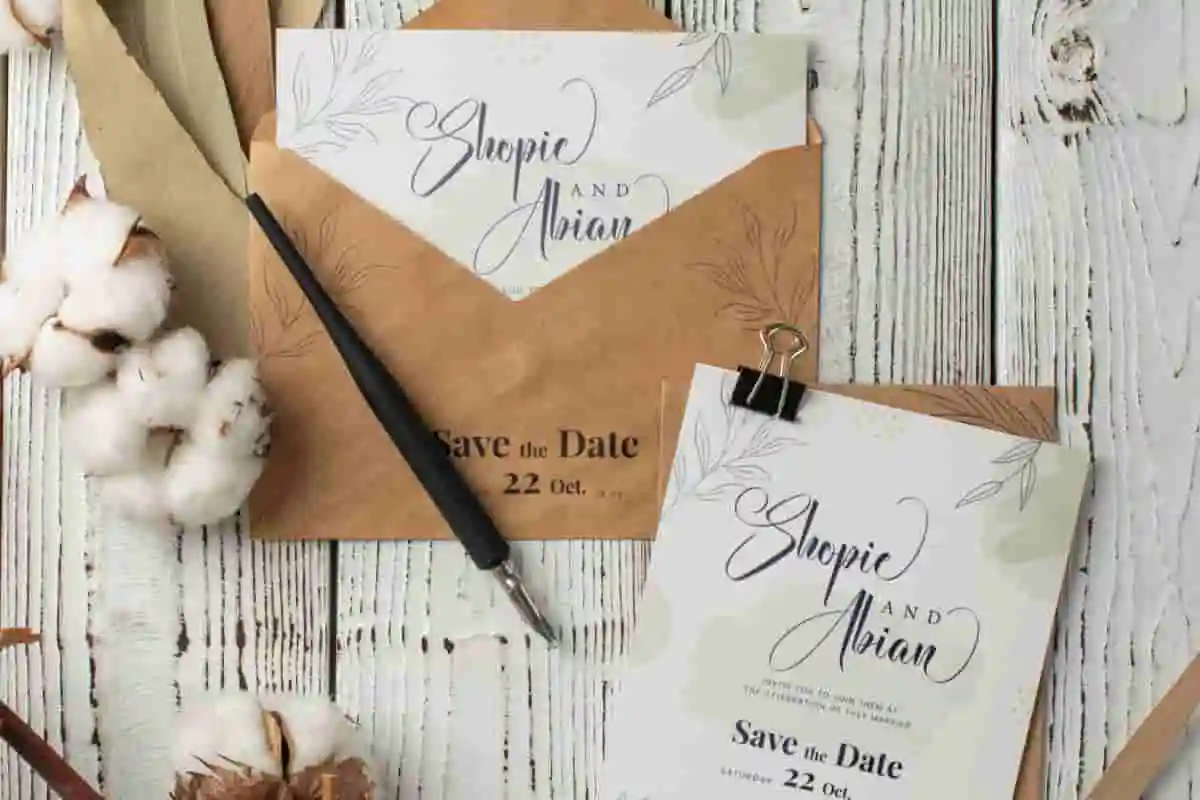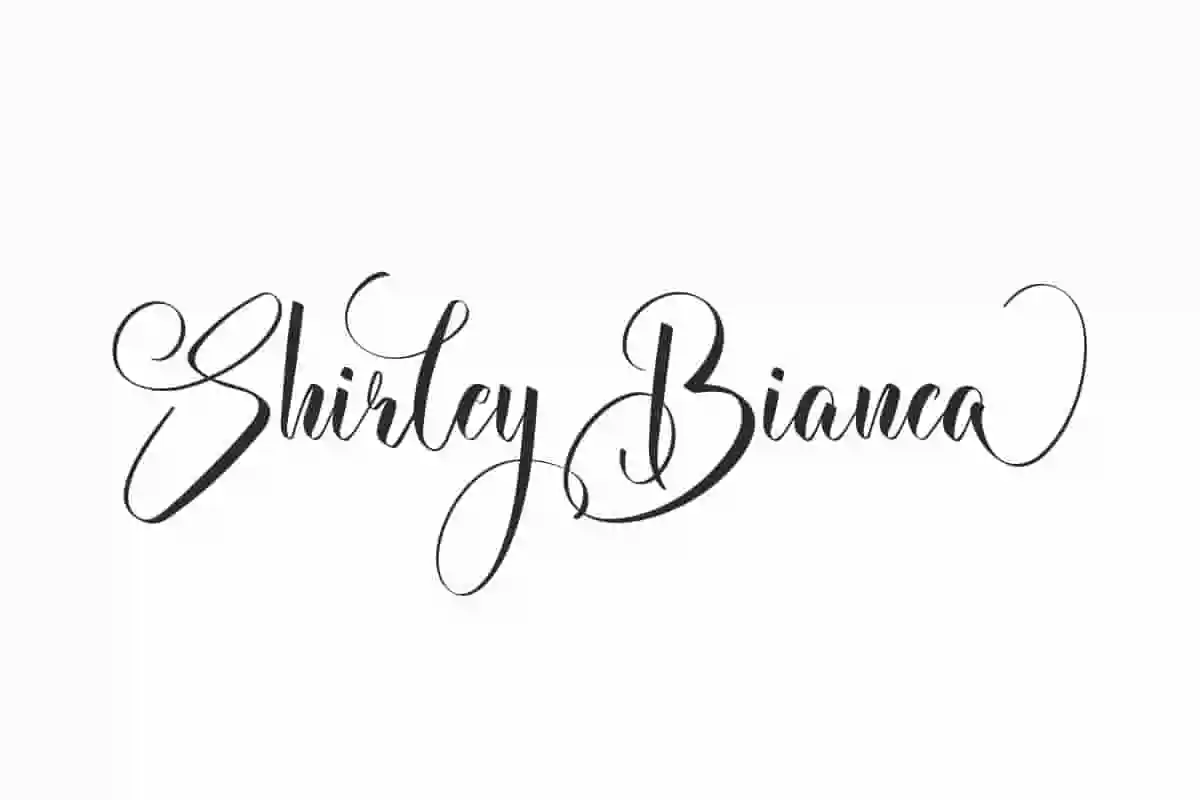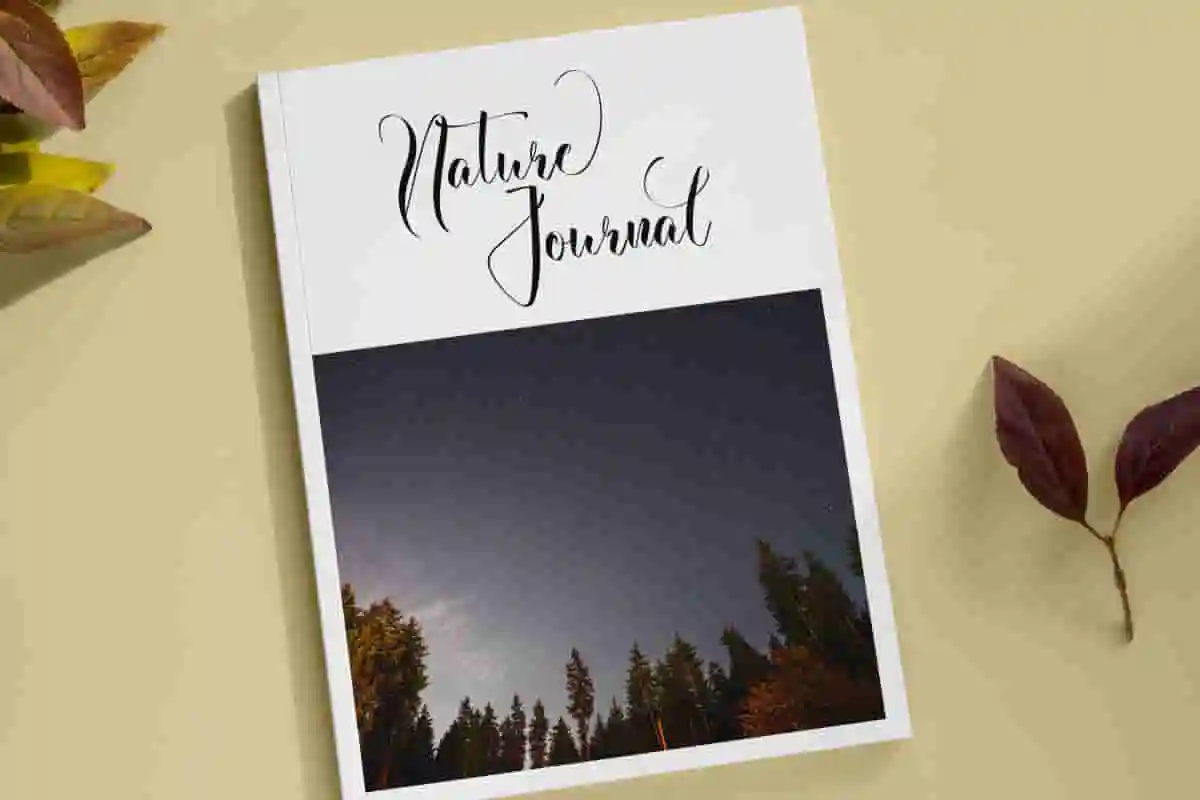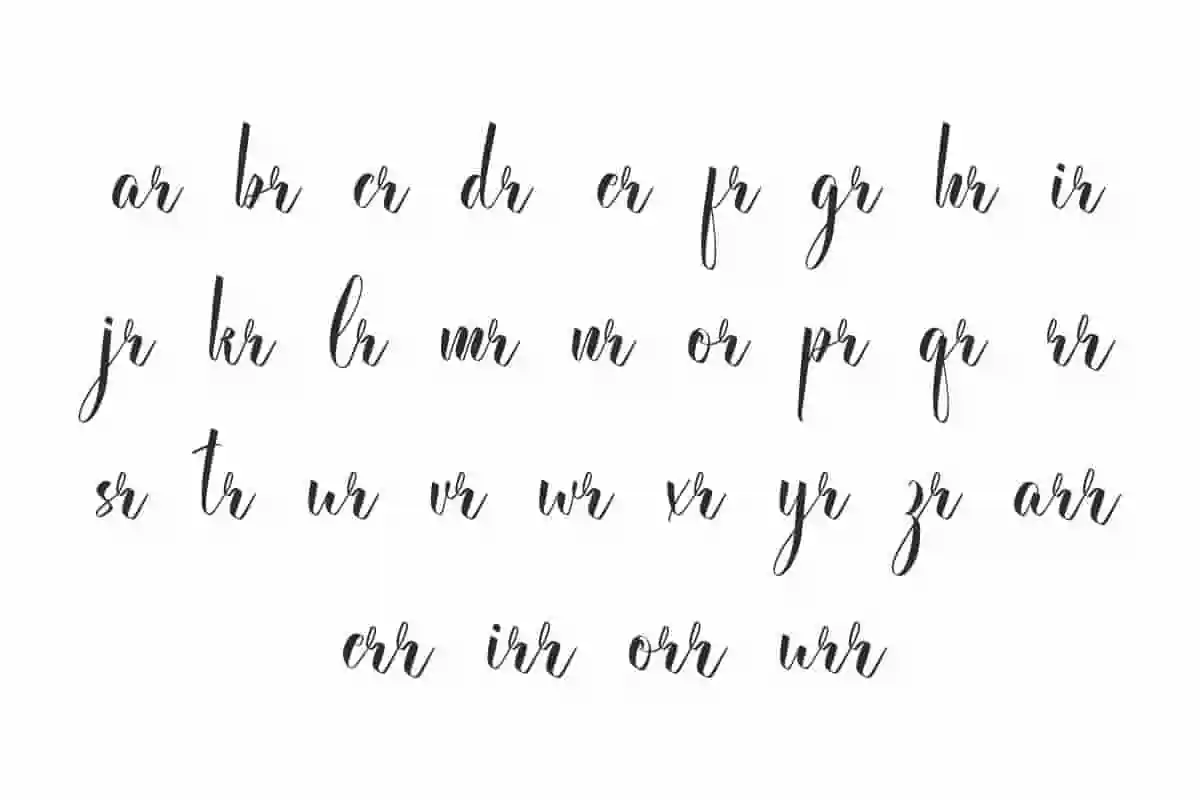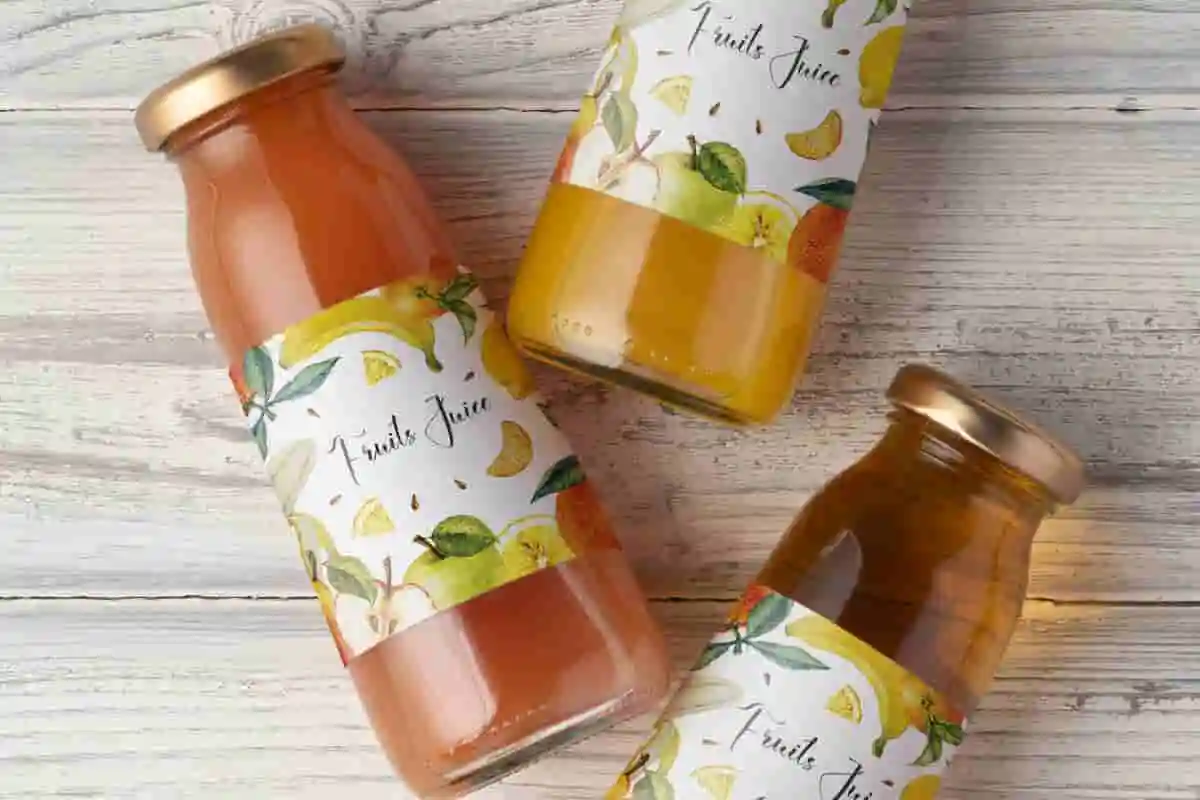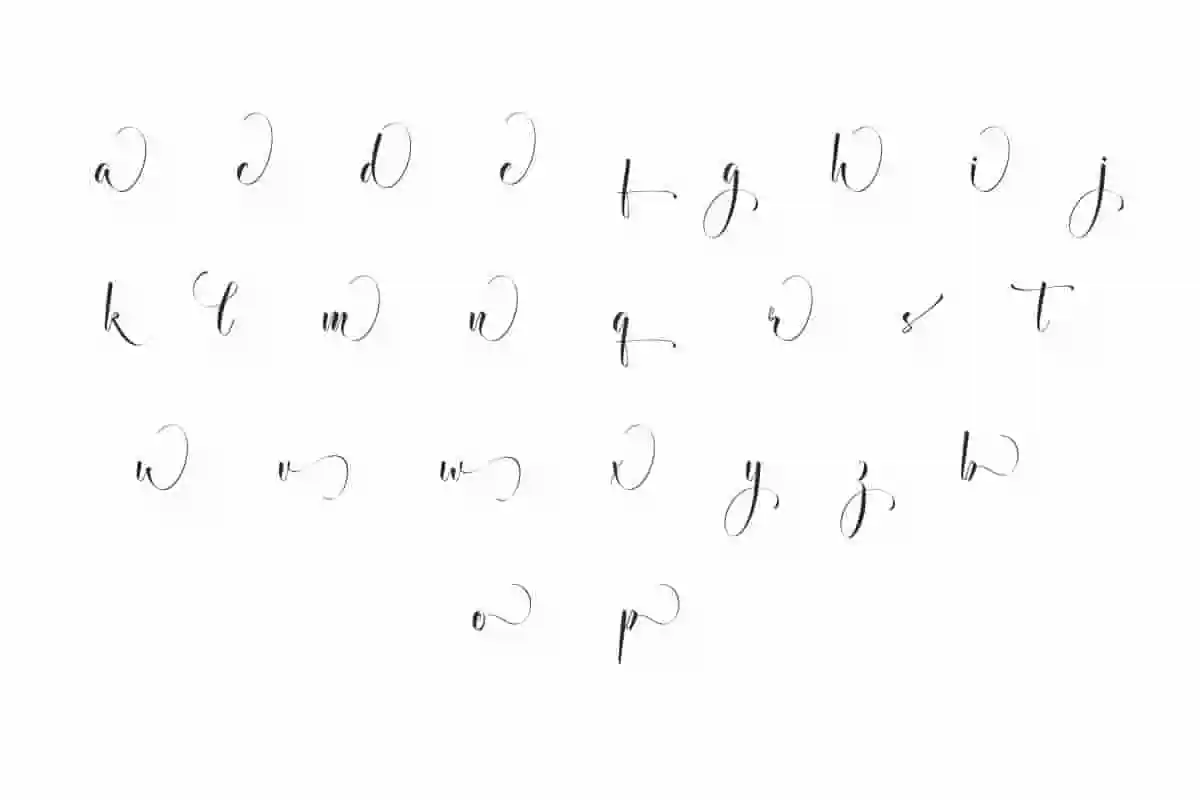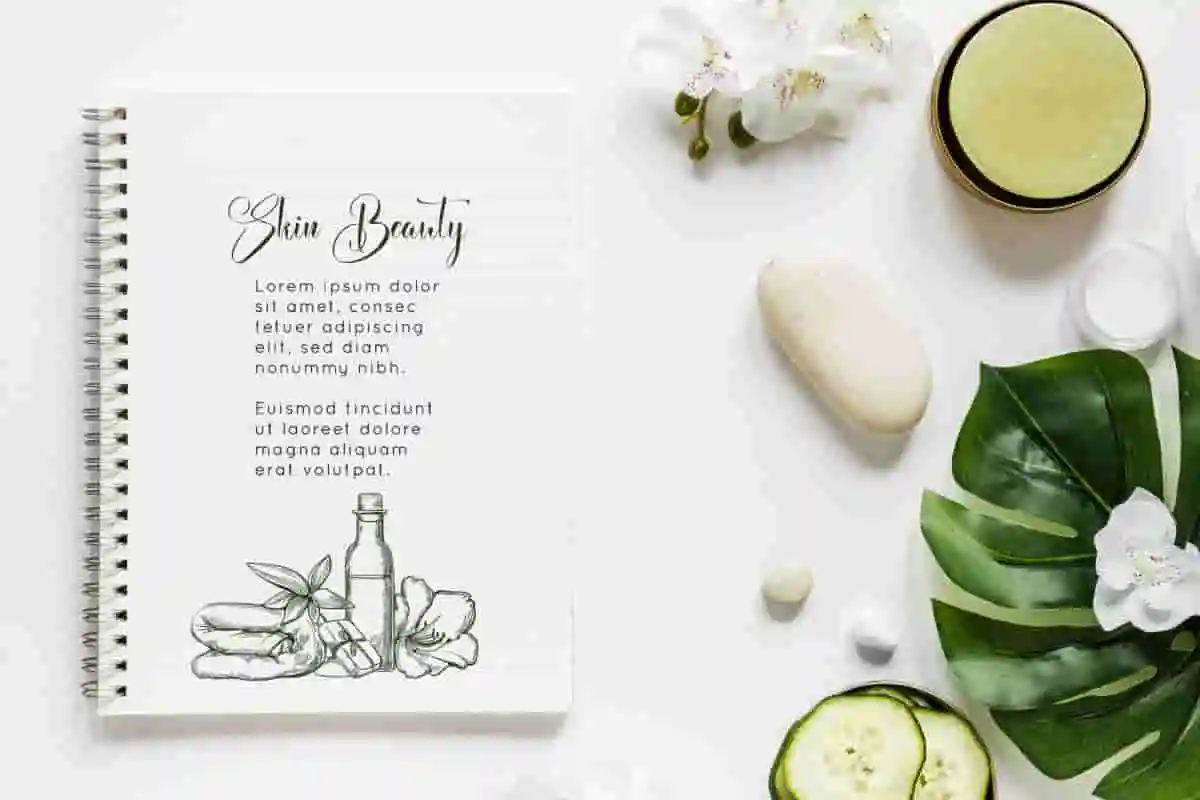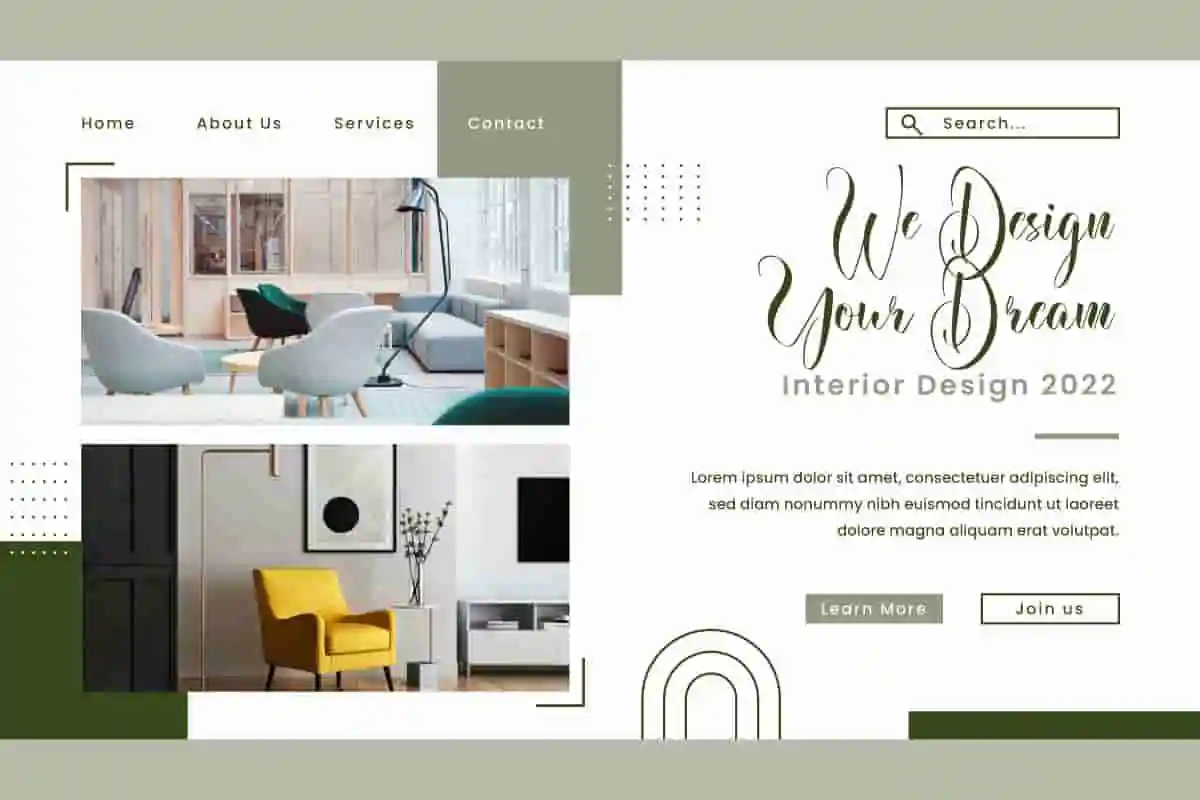
Shirley Bianca Font
Shirley Bianca Font is a stunningly elegant calligraphy script font handcrafted by NihStudio with classy and touch of beauty. It will be great for beauty clinic, product labels, brandings, invitation, etc
Shirley Bianca Font is a stunningly elegant calligraphy script font handcrafted by NihStudio. Has sleek and tall appearance by creating a clean and charming impression that will add to the beauty of your design, such as brand logo, brochure, business card, cover, invitation, label, photo album, product packaging, quote, sticker, title, watermark, website, and much more!
Shirley Bianca Font comes with a full set of Uppercase and Lowercase Basic Characters, Number, Punctuation, Symbol. This font also features with Ligature and Alternate characters to make it perfectly bound and add aesthetic value to the font. Use this for your business industry such as, beauty clinic, furniture, healthy food, photography, printing, publishing, restaurant, skincare, spa salon, wedding, etc.